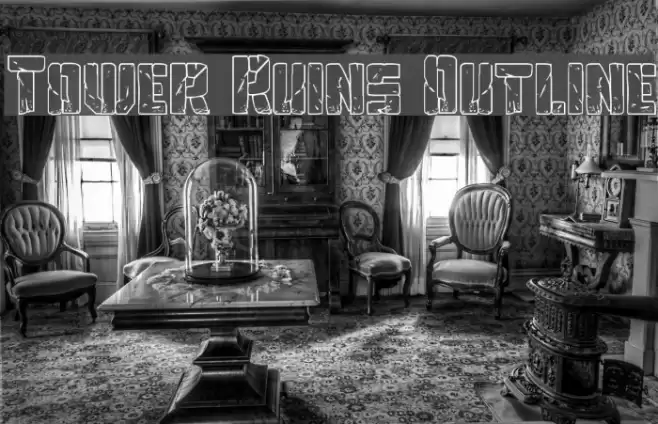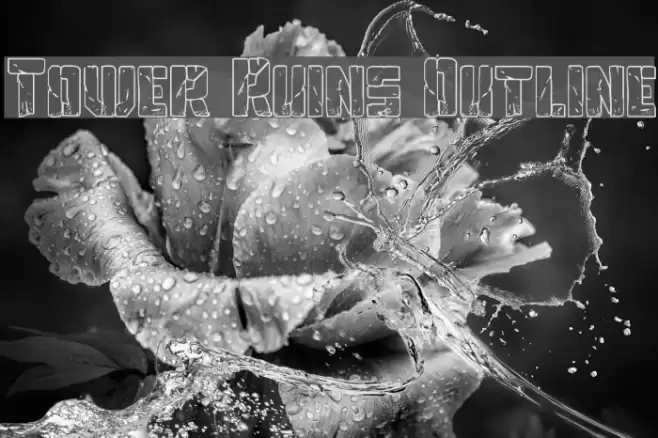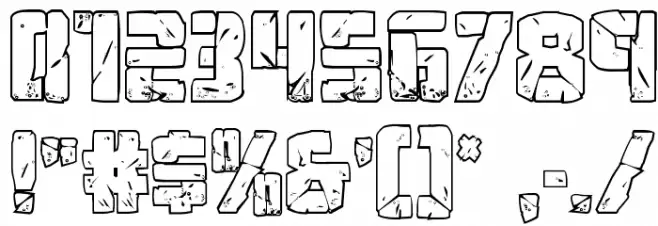
Tower Ruins Outline Font
Tower Ruins Outline Description
This font features a rugged, distressed outline style that mimics the appearance of ancient ruins or weathered stone. Each character is designed with a bold, blocky structure, giving it a strong and imposing presence. The outlines are irregular and textured, adding a sense of age and decay, which enhances its thematic appeal. The uppercase and lowercase letters maintain a consistent style, with the numbers and special characters following suit. This font is ideal for projects that require a dramatic and historical aesthetic, such as themed posters, video game titles, or fantasy book covers.
A rugged, distressed outline font resembling ancient ruins or weathered stone from Fancy fonts.
- Proposed Projects: Ideal for themed posters, video game titles, fantasy book covers, and historical event promotions.